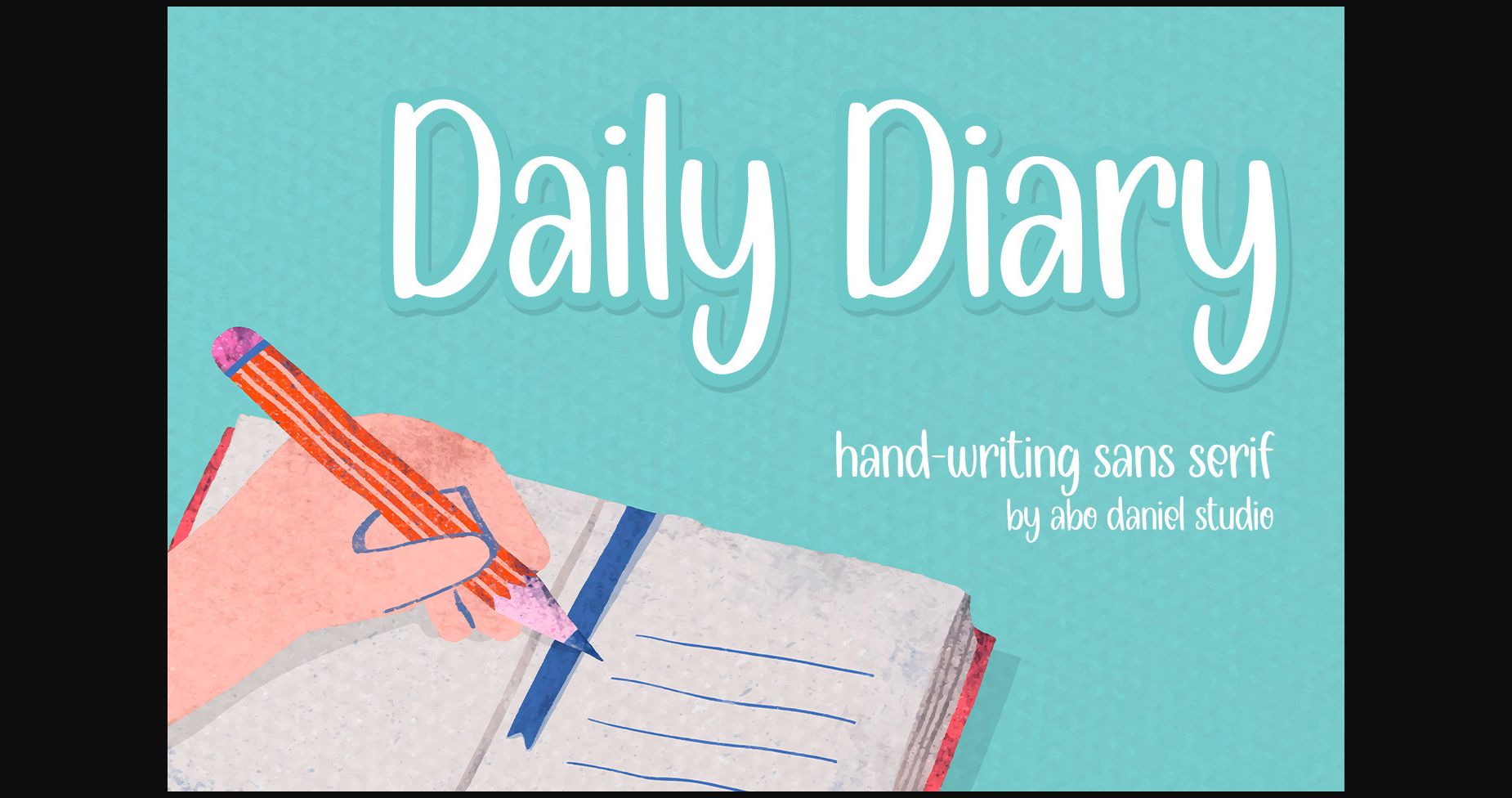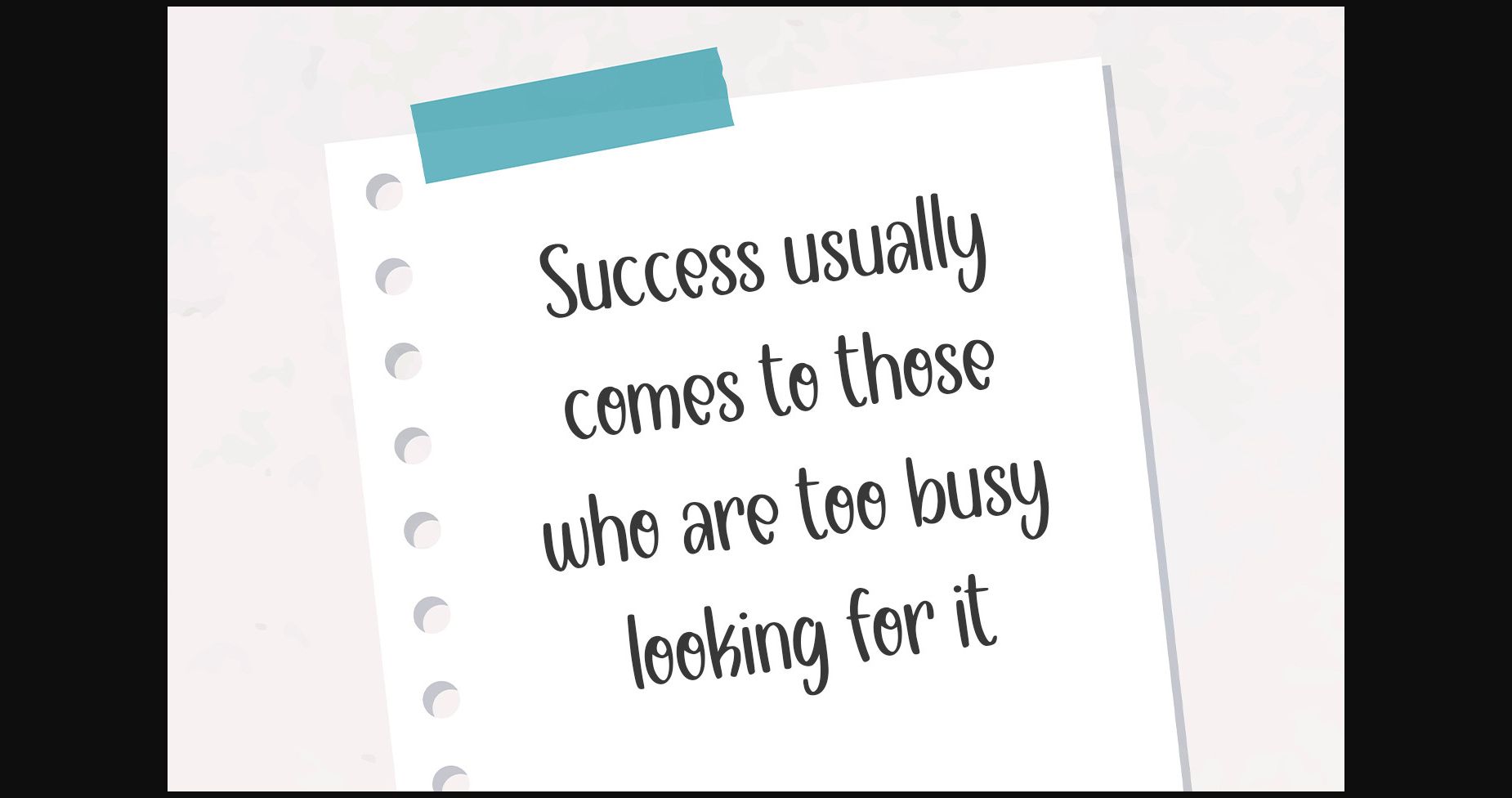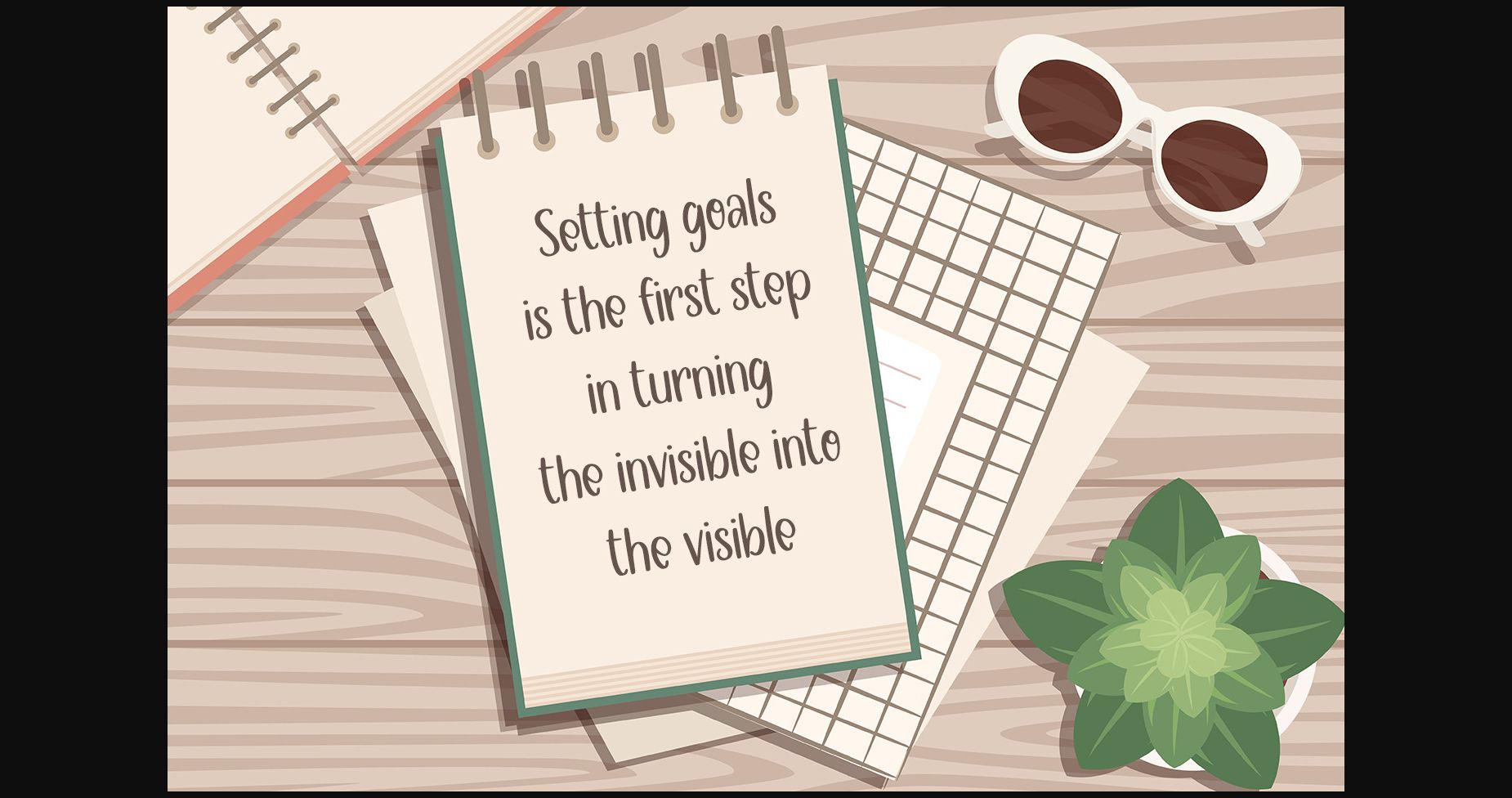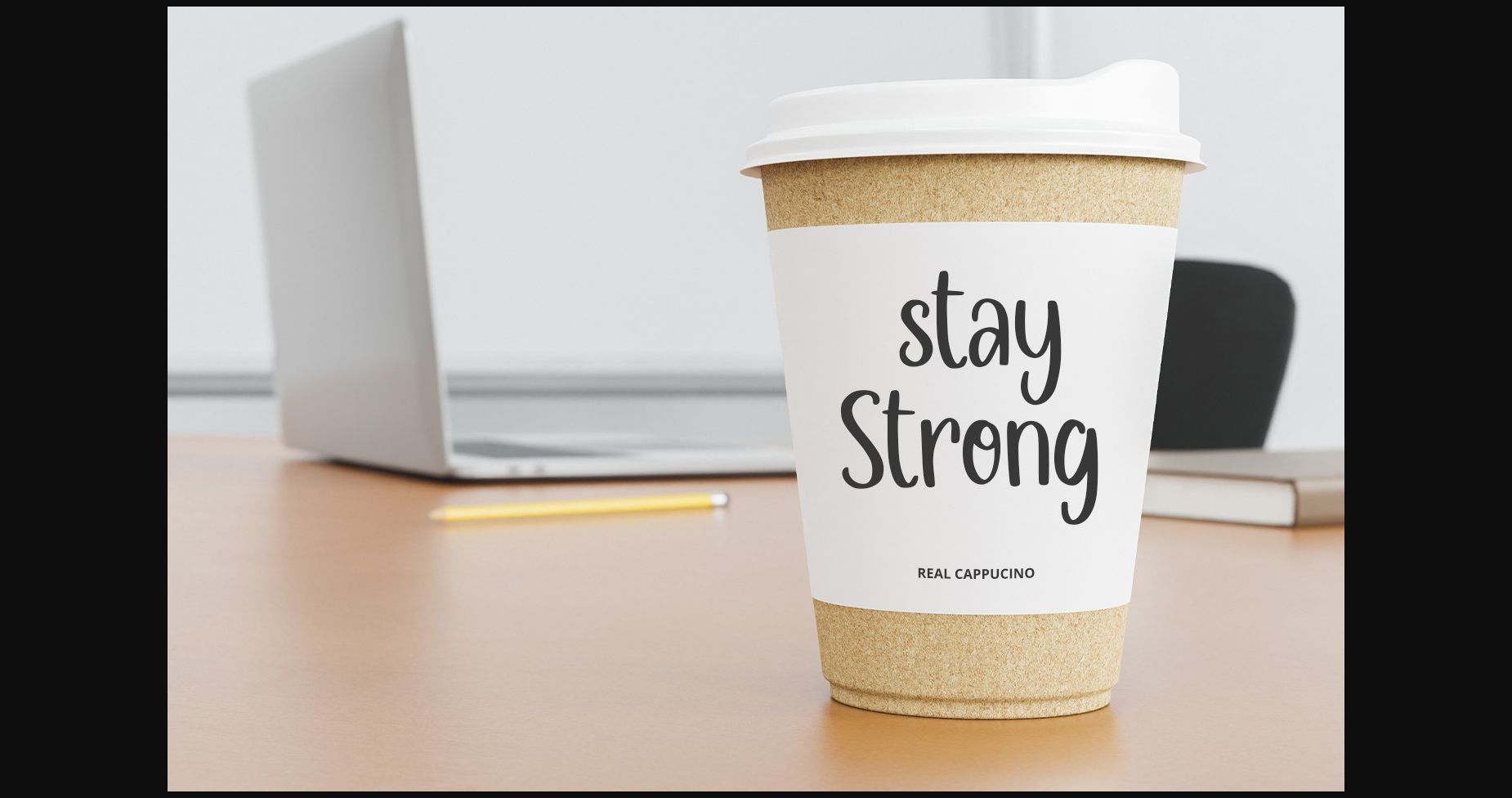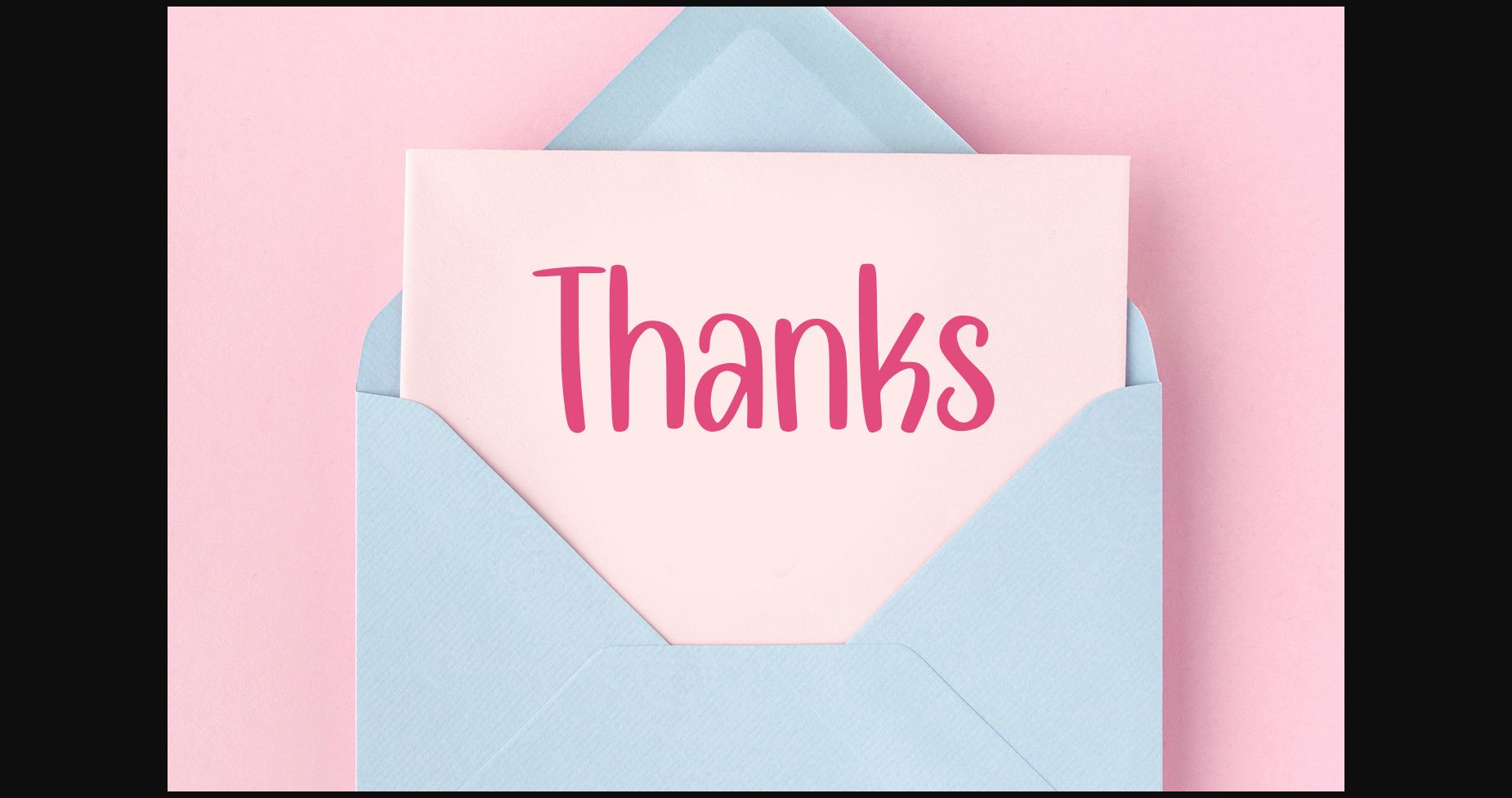
Daily Diary Font
About Daily Diary Font
Daily Diary is a simple and quirky sans-serif font. It is great for t-shirt designs, books, magazines, branding, packaging, logos, quotes, mugs, tote bag designs, cards, banners, social media, and anything about craft projects.